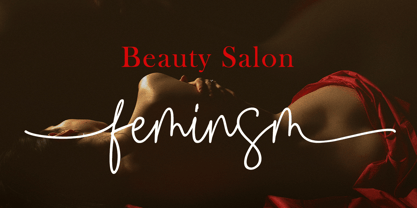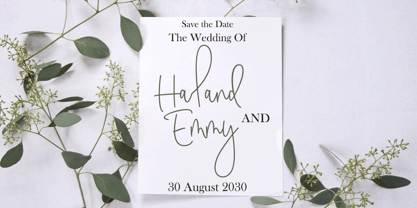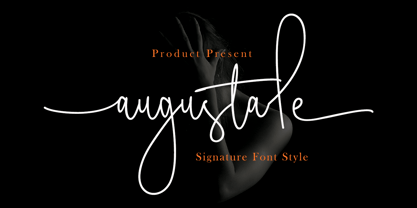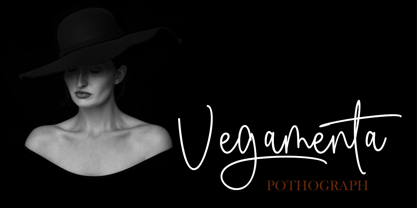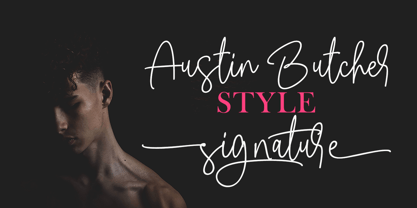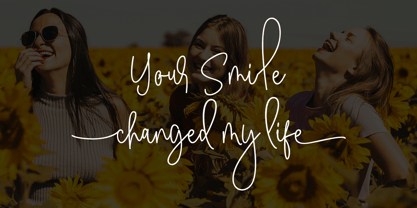
Augustale Duo
by Meutuwah
The Augustale Duo Font Family was designed by Fadhil Aqsa and published by Meutuwah. Augustale Duo contains 2 styles and family package options. More about this family
INTRODUCING
Augustale Duo a work that is purely handwritten, has its own characteristics with the style of monoline. this is perfect for invitations, signatures, blogs, social media, business cards, product brands.
Augustale Duo has Stylistic standard, Stylistic Alternate, Stylistic Sets and ligatures. and includes uppercase and lowercase letters, numbers and punctuation marks.